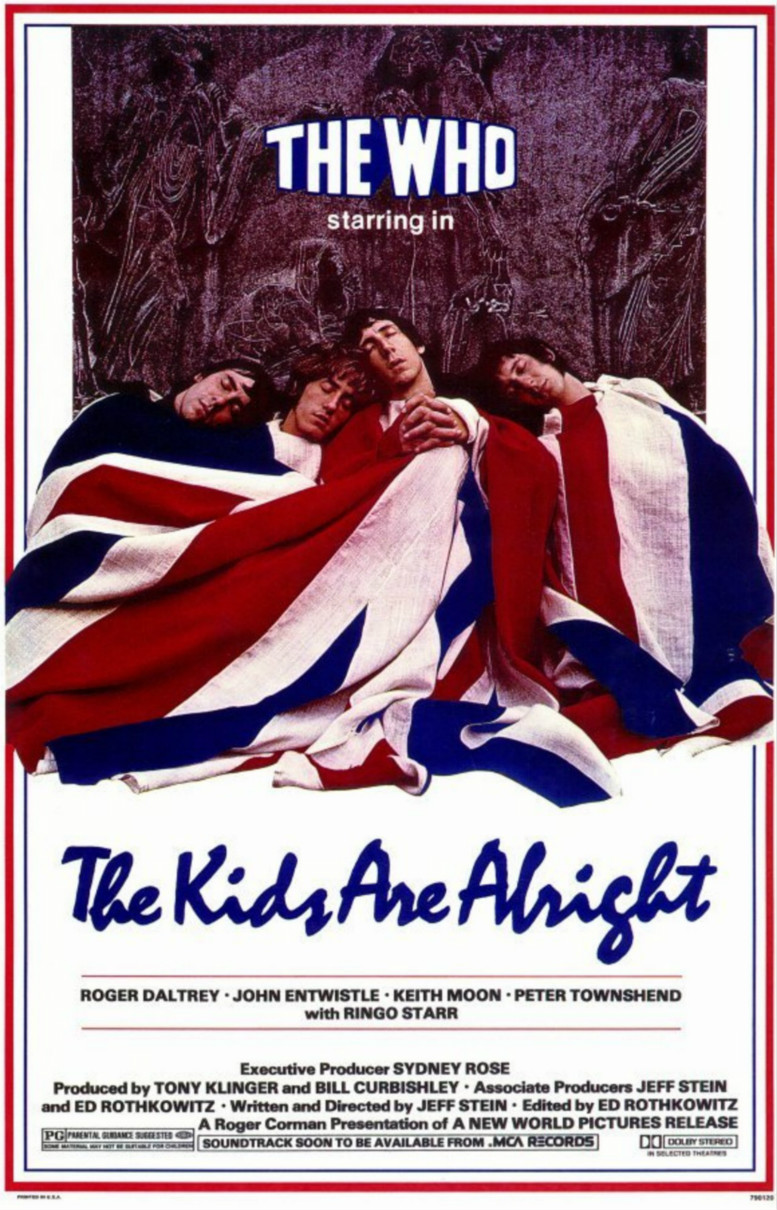
The Kids Are Alright Font
DocumentaryThe Kids Are Alright is a 1979 documentary film that chronicles the history of The Who, one of the most influential and iconic bands in rock music history. The film features concert footage, interviews, and behind-the-scenes moments from the band's career.
The poster for the film features a script font called Mistral for the title. This typeface, named after the powerful winds of southern France, was created by Roger Excoffon in 1953 for the Olive foundry.